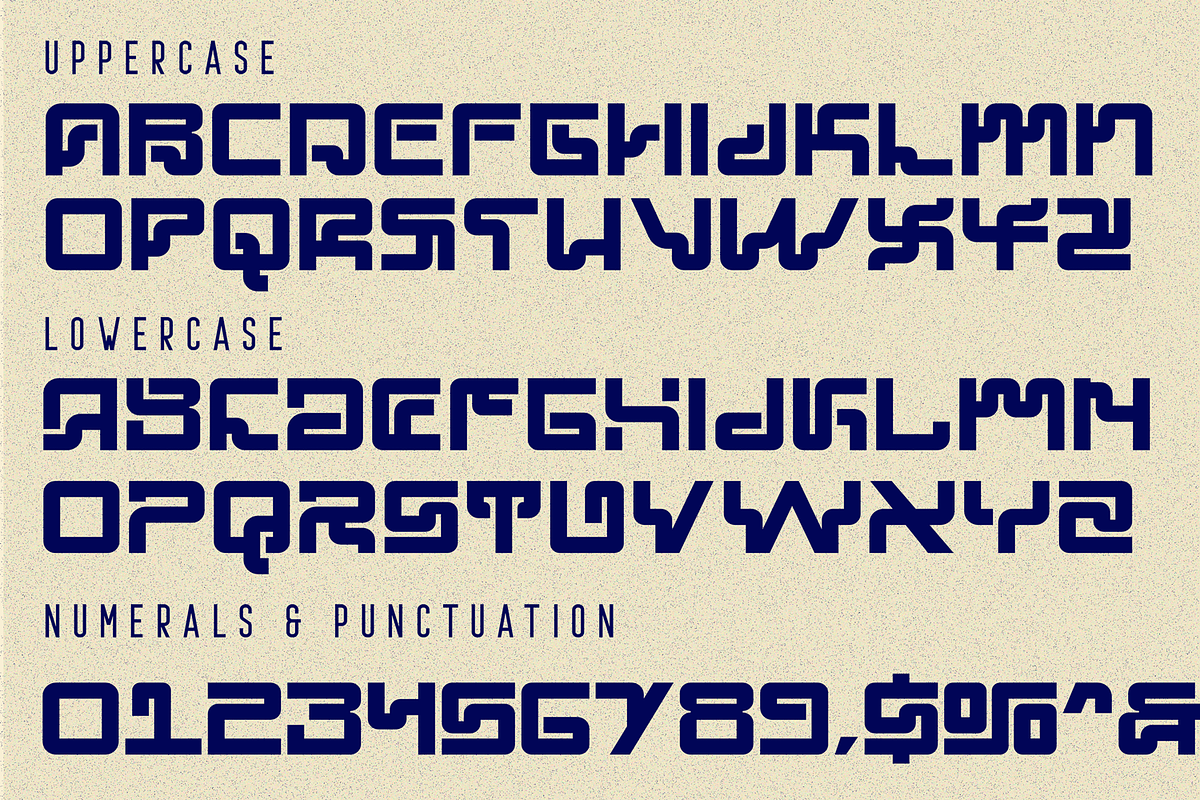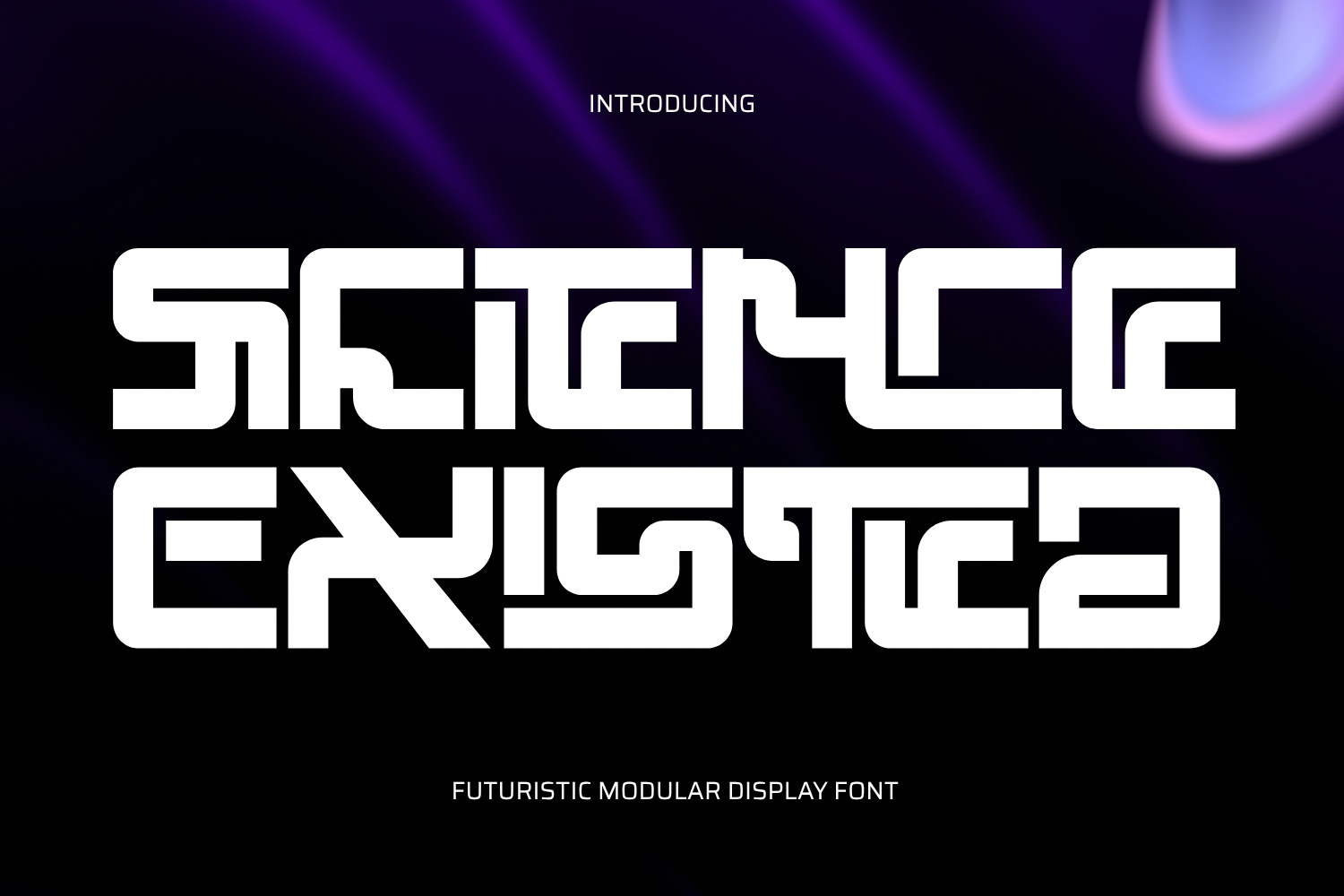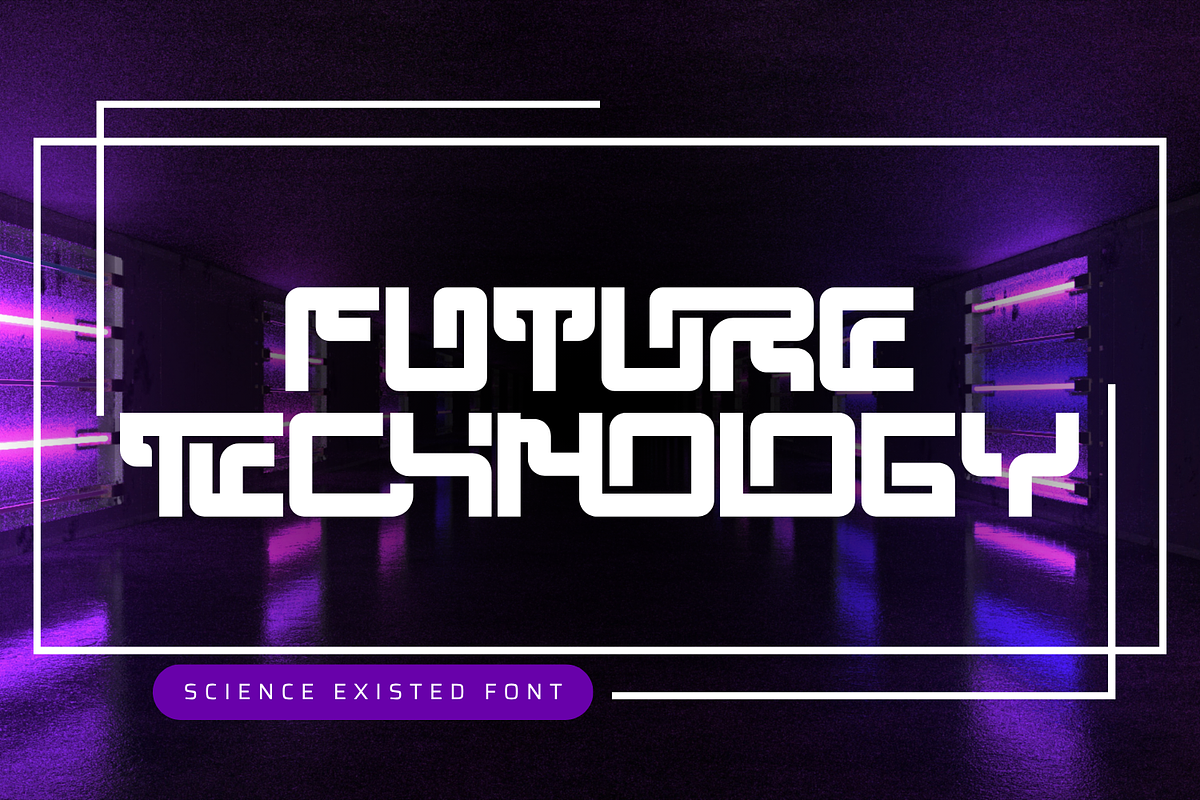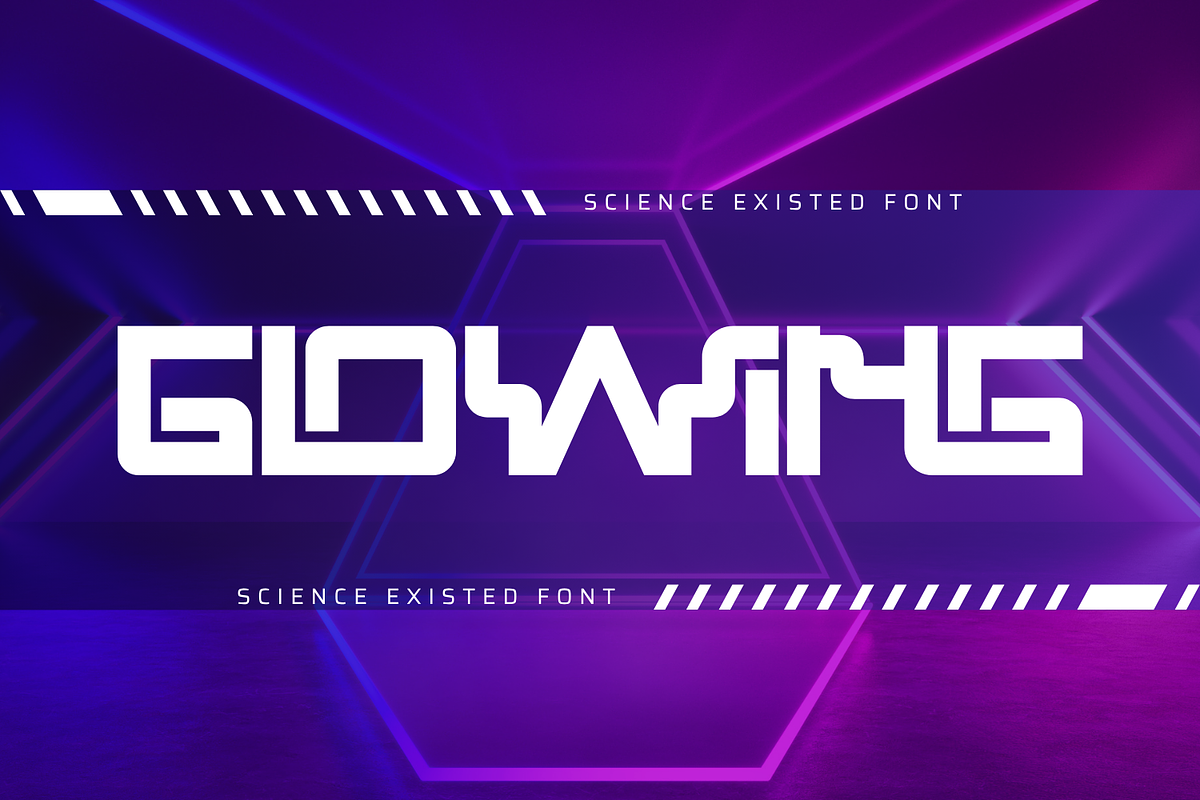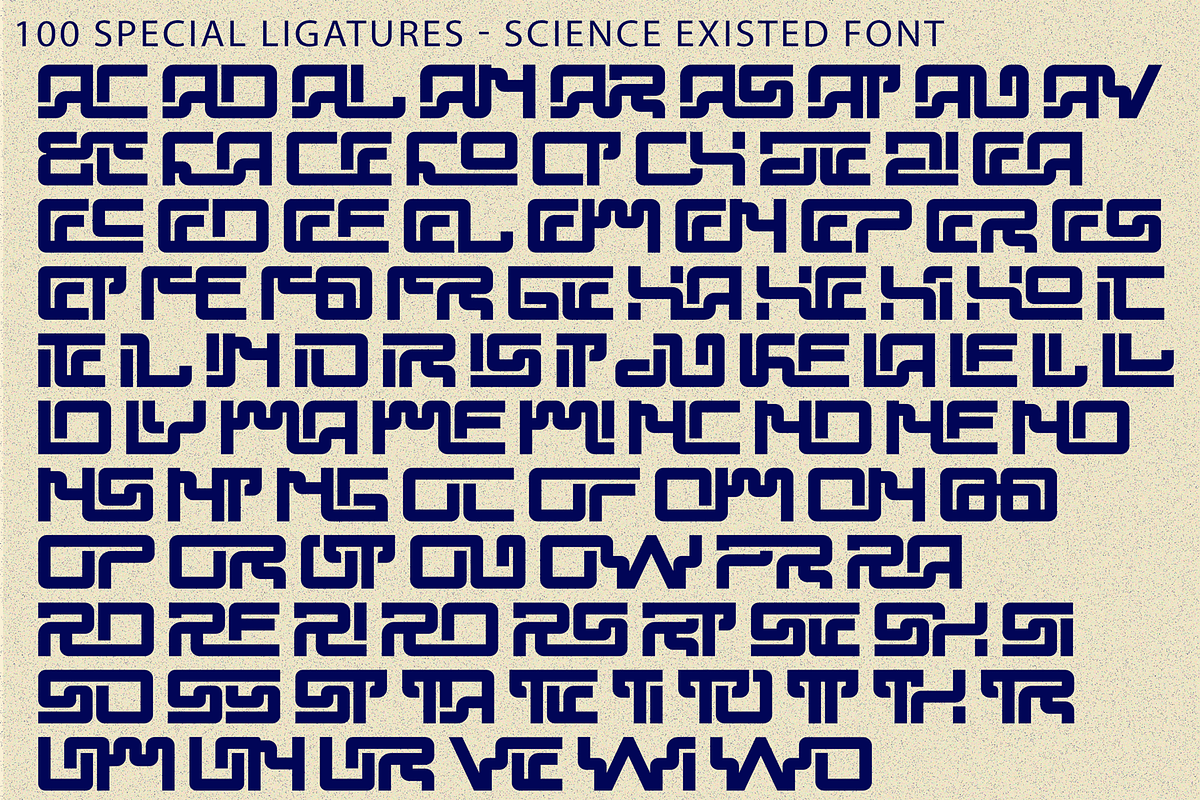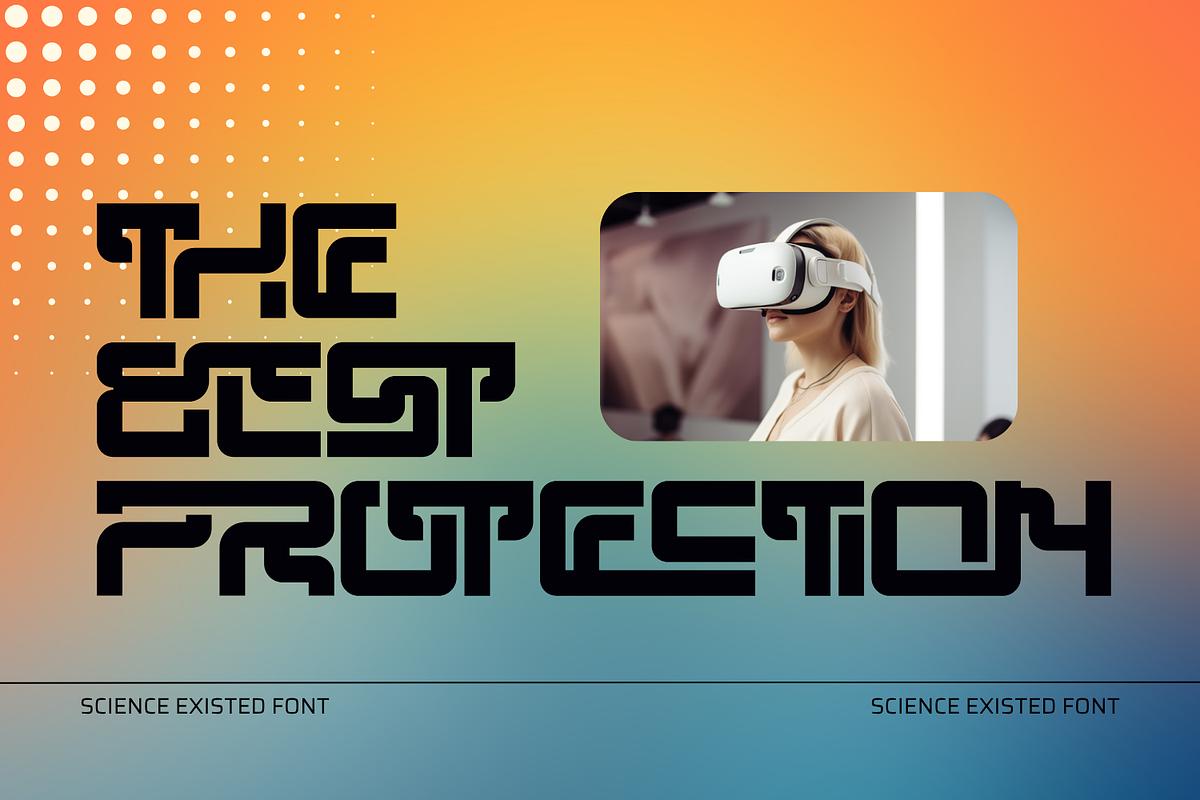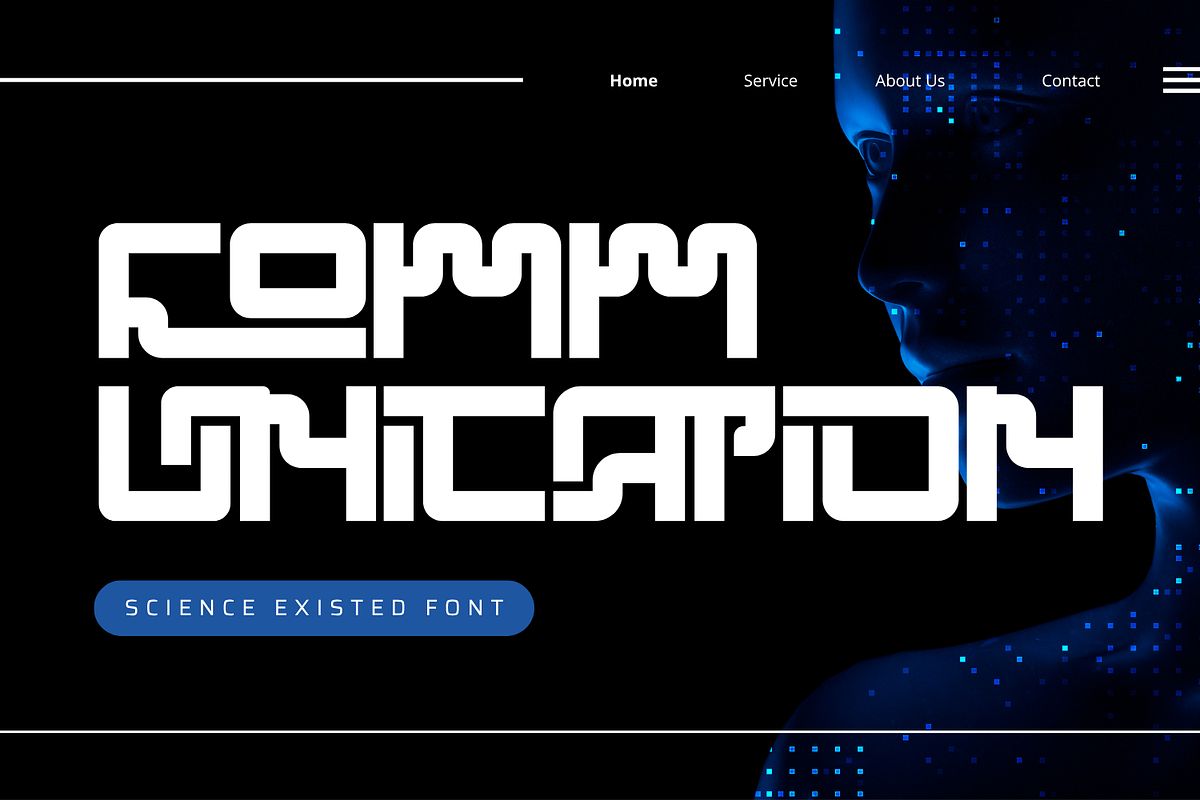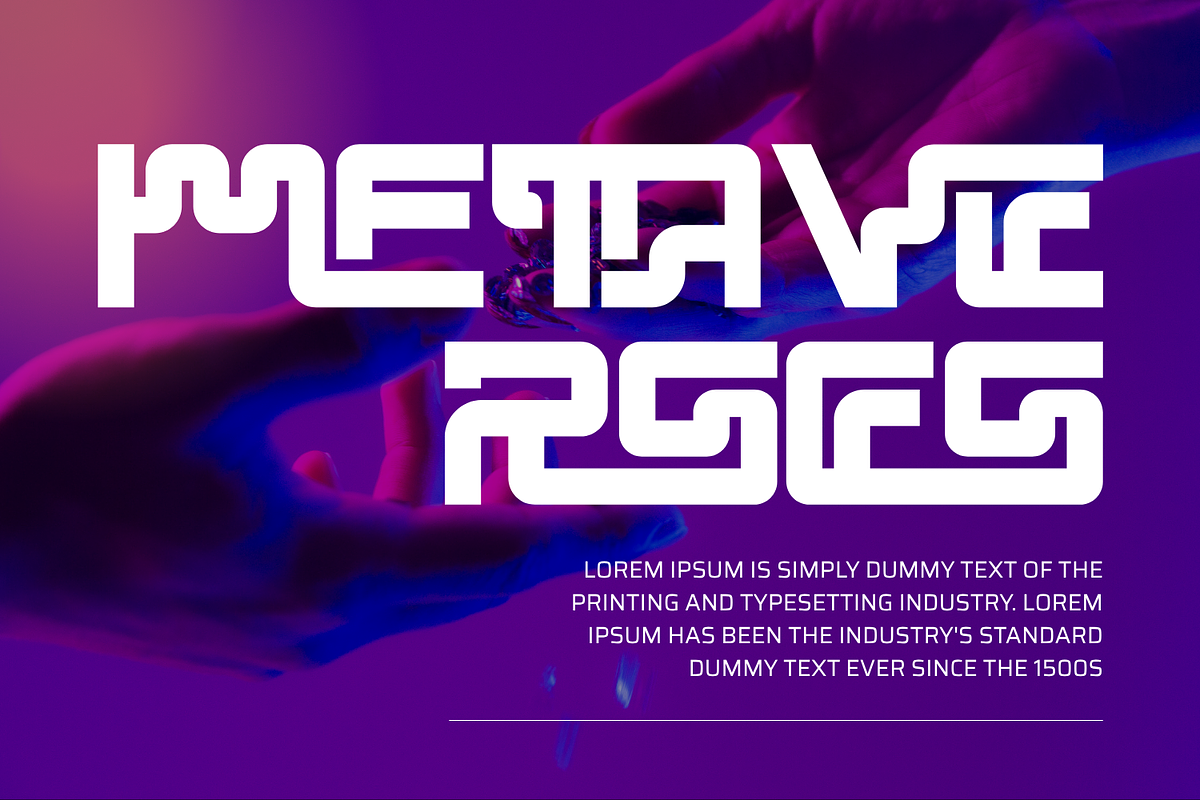
Science Existed - Futuristic Font
Science Existed - Futuristic Font is a bold futuristic geometric display typeface designed with a strong modular and sci-fi aesthetic. Built from solid blocky shapes and interconnected letterforms, this typeface delivers a powerful and compact visual impact inspired by advanced technology and digital systems. With its heavy uniform strokes, rounded corners, and precise geometric structure, Science Existed creates a seamless and dynamic rhythm across every word. This typeface is perfect for gaming titles, tech branding, AI visuals, futuristic posters, and digital interface design.
- Uppercase & Lowercase Letters
- Around 100 Special Ligatures & Alternates
- Accented Characters for multilingual support
🔤About 100 ligatures combined with Stylistic Alternates Font:
ac ad al an ar as at au av be ca ce ch co ct de di ea ec ed ee el em en ep er es et fe fo fr ge ha he hi ho ie ic il in io ir is it ju ke la le li ll lo ly ma me mi nc nd ne ng no nt ns oc of om on oo op or ot ou ow pa pr ra rd re ri ro rs rt se sh si so ss st ta te th ti to tr tt um un ur ve wi wo